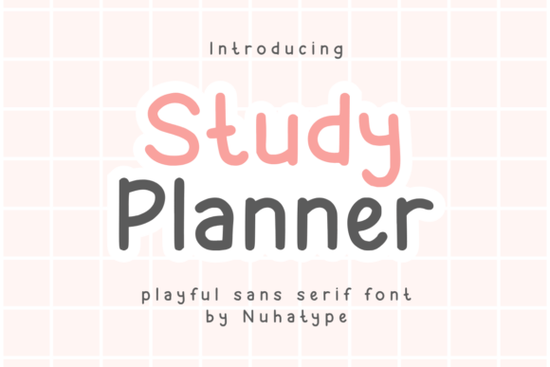
If you've been searching for a font that feels like your own handwriting but looks polished enough for professional projects, Studdy Planner Font might be exactly what you need. It's a thin, minimalist sans serif with a natural handwritten quality that works beautifully across planners, journals, stickers, and print-on-demand products. I've put together this breakdown to help you decide if it's the right fit for your next creative project.
What Makes Studdy Planner Font Stand Out?
Most handwritten fonts fall into two camps: they're either too messy to read at small sizes or too stiff to feel authentic. Studdy Planner sits in a sweet spot between the two. Its thin, airy letterforms give text room to breathe, which is especially important when you're designing layout-heavy pages like planners or interior KDP books.
Here's what I noticed right away:
- Light stroke weight keeps pages from looking cluttered or heavy
- Consistent character spacing text stays readable even at smaller sizes
- Organic curves letters feel hand-drawn without sacrificing legibility
- Versatile personality works for both functional layouts and decorative pieces
That blend of simplicity and warmth is what makes it useful across so many different project types. It doesn't try too hard and that's a good thing.
What Can You Actually Use This Font For?
This is where Studdy Planner really proves its value. It's not a one-trick typeface. Here are some practical ways designers and crafters are putting it to work:
- Planners and journals headers, day labels, section titles, and margin notes
- KDP interiors activity books, gratitude journals, and guided notebooks
- Stickers and labels both for Cricut/Silhouette projects and print-on-demand shops
- Quotes and wall art the thin weight pairs well with bolder display fonts
- Tumblers, mugs, and tote bags clean enough for small surface applications
- Social media graphics especially Instagram quotes and Pinterest pins
How Does It Pair With Other Fonts?
Pairing is where thin fonts like Studdy Planner can really shine. Because it's so light and understated, it plays well alongside typefaces with more visual weight. Here are a few combinations worth trying:
- Pair it with a bold geometric sans for contrast in headers versus body text
- Use it alongside a decorative chapter display font for book covers and title pages
- Mix it with a clean modern alternative for minimalist branding projects
- Try it next to a rounded, friendly option for kids' activity books or playful layouts
- Match it with a playful display style for seasonal greeting cards or party invitations
The general rule: let Studdy Planner handle the smaller, supporting text, and bring in something heavier for titles or focal points.
Is It a Good Choice for KDP and Print-on-Demand?
Absolutely. For KDP sellers specifically, interior font selection matters more than most people realize. Readers interact with your interior text for hours if the font is too heavy, too quirky, or poorly spaced, it creates friction. Studdy Planner's thin, relaxed style keeps pages feeling open and approachable, which is exactly what you want in a guided journal or planner.
For print-on-demand products like mugs and tote bags, the font's simplicity translates well to both screen printing and vinyl cutting. Thin fonts can sometimes cause issues with weeding or ink coverage, but Studdy Planner's clean lines hold up nicely at standard production sizes.
Quick Tips Before You Start Designing
- Test at your final output size thin fonts can disappear on dark backgrounds or at very small scales, so always do a test print or mockup first.
- Mind your spacing give text set in Studdy Planner a little extra line height. The light strokes benefit from breathing room.
- Use bold or caps sparingly this font shines in its regular, lowercase form. Overusing uppercase or bold styling can undercut its natural charm.